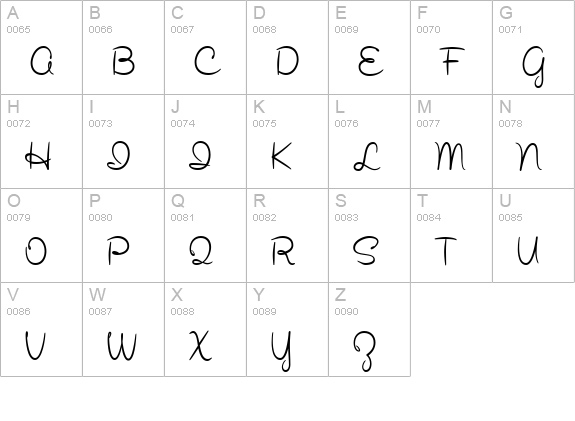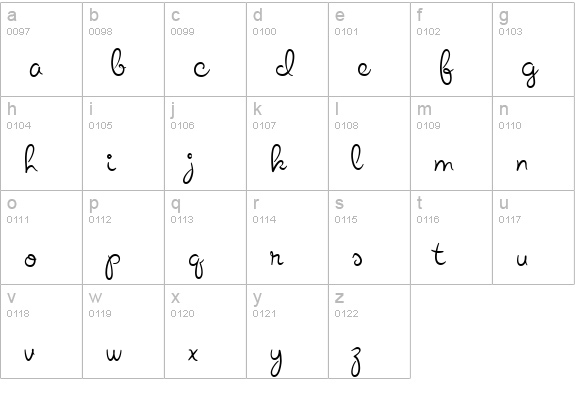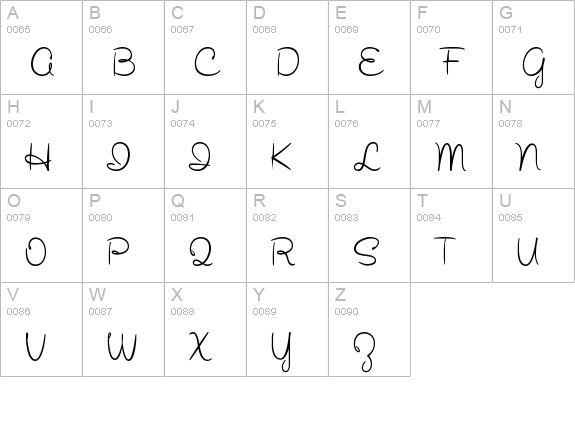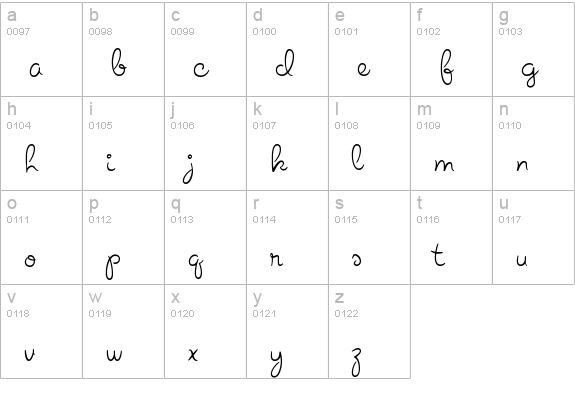
Introducing Secret Recipe font, a charming and delightful typeface that will add a touch of whimsy to any project. With its unique and playful design, Secret Recipe is perfect for capturing attention and creating a sense of joy and wonder. This font features beautifully crafted letters with a hand-drawn feel, giving it a warm and inviting personality. Whether you're designing a logo, creating a poster, or crafting a greeting card, Secret Recipe will bring your words to life in a truly enchanting way. But what makes Secret Recipe font even more special is that it is free! That's right, you can freely download this incredible font at FontsMarket.com. It's a fantastic opportunity to add a touch of magic to your designs without having to spend a dime. So, why wait? Unlock the secret to captivating designs with Secret Recipe font. Download it for free at FontsMarket.com today and watch as your projects come alive with creativity and charm.